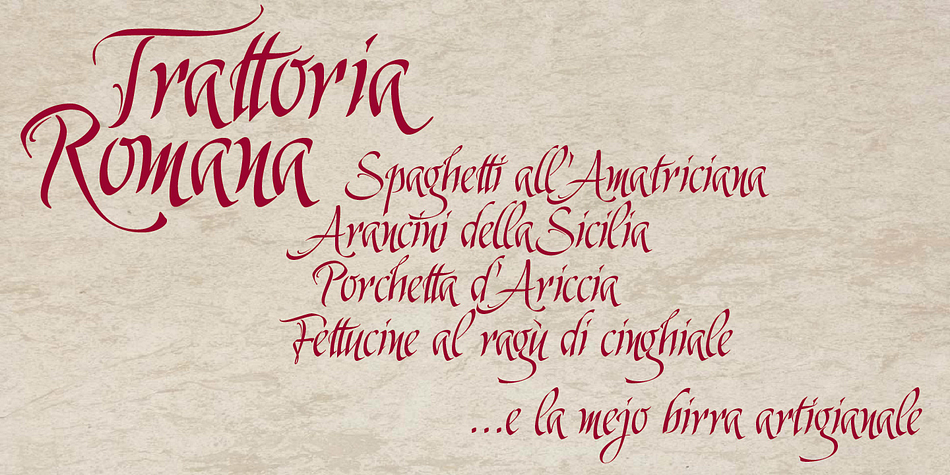
Pieve
Designed by Alberto Pedro di Santo, Pieve is a brush script and script font published by Eurotypo.
Pieve (means community): The idea was to create a gestual and fresh typeface, almost rustic and sometimes elegant, a Latin typography popular and irreverent. This font comes with stylistic variations that highlight their regular handwriting. The result is a modern writing readable and well balanced.
Foundry Eurotypo
Styles Brush Script, Script
Designer Alberto Pedro di Santo